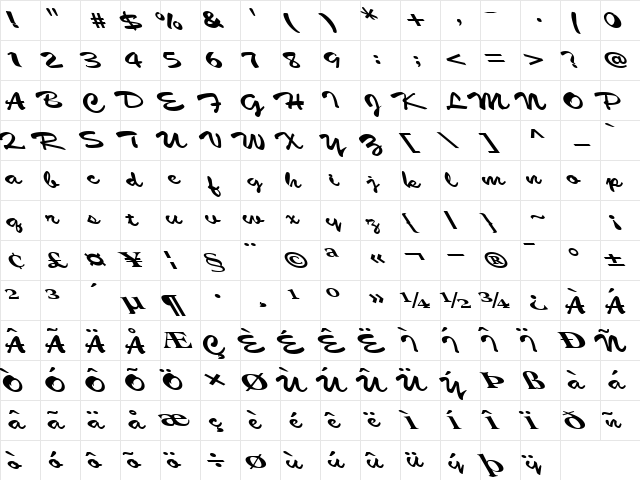
Multi Regular
Design Context for Multi Typeface
Multi is a composed and adaptable typeface that performs quietly and consistently across a wide range of design contexts.